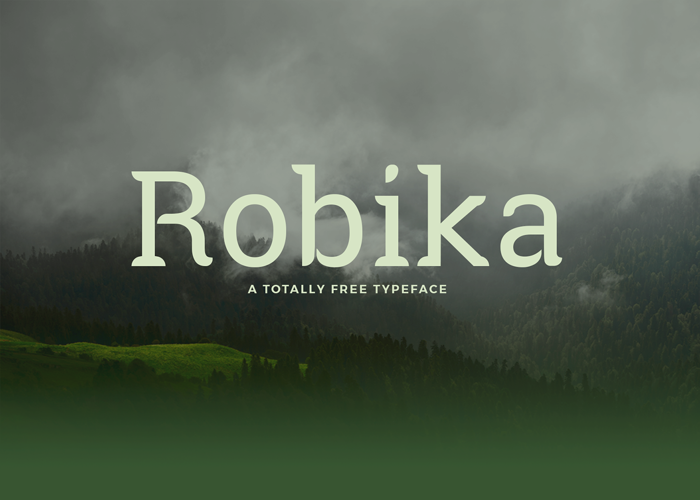
Robika Font
Robika is a typeface with unique rounded serifs, the font is inspired by a blend of Roboto and Eika. It can work for poster design, logos and branding.